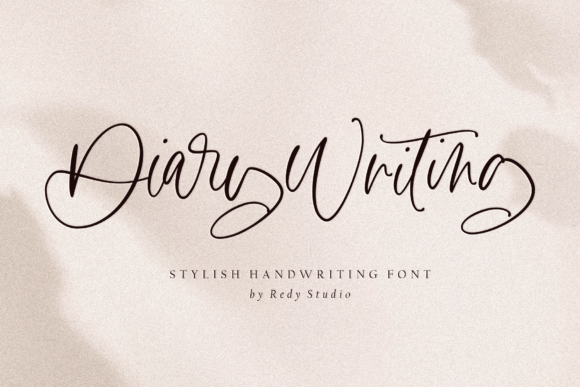
Adorn your Instagram bio with a touch of elegance and charm, introducing Diary Writing Font, a captivating handwritten font that will transform your profile into a visual masterpiece. This exquisite script font exudes a unique personality, adding a touch of whimsy and sophistication to every word you type. Say goodbye to mundane bios and embrace the allure of Diary Writing, a font designed to make your profile stand out from the crowd.
With its graceful curves and flowing lines, Diary Writing Font captures the essence of handwritten notes, evoking a sense of intimacy and authenticity. Its organic and fluid style adds a human touch to your bio, making it feel like a personal invitation to engage with you. Whether you're a creative entrepreneur, a lifestyle blogger, or simply someone who wants to add a touch of flair to their online presence, Diary Writing Font is the perfect choice.
Designed with versatility in mind, Diary Writing Font transcends the boundaries of Instagram bios. Unleash its charm in greeting cards, where its delicate strokes will add a touch of warmth and sincerity. Use it to craft eye-catching headlines that demand attention, leaving a lasting impression on your audience. The possibilities are endless, as Diary Writing Font seamlessly adapts to a myriad of creative projects.
Embrace the artistry of Diary Writing Font and unlock the gateway to a captivating online presence. With its PUA encoding, accessing the full spectrum of glyphs and swashes is a breeze, allowing you to add intricate details and flourishes that will leave your followers spellbound. Elevate your Instagram bio beyond the ordinary and embrace the allure of Diary Writing Font, the ultimate tool for a truly enchanting online experience.